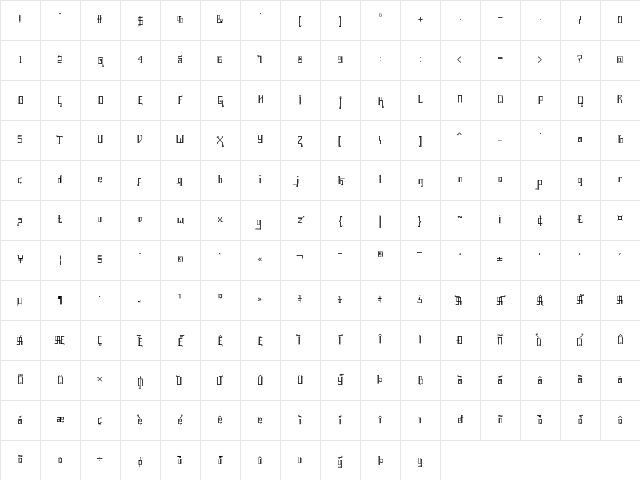
Awesome Java Regular Free Font
Awesome Java Regular
Designer: Adien Gunarta
Year: 2011
Design Context for Awesome Java
Awesome Java is a composed and adaptable typeface that performs quietly and consistently across a wide range of design contexts.